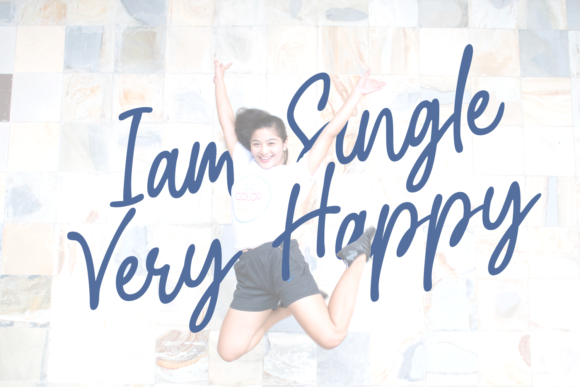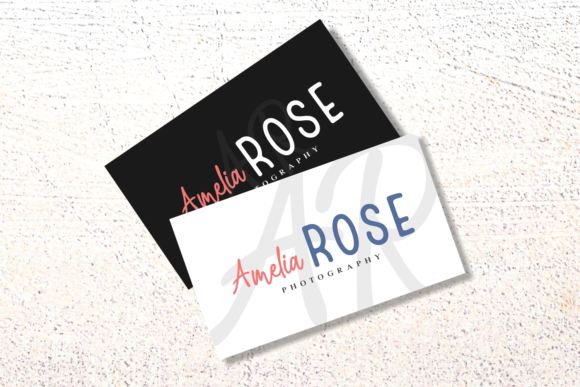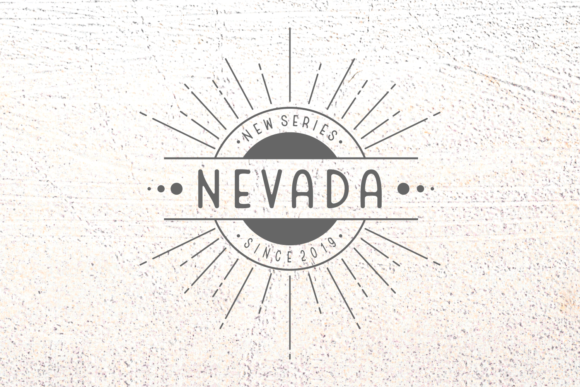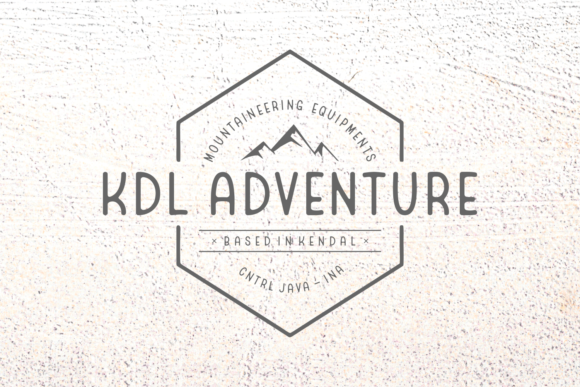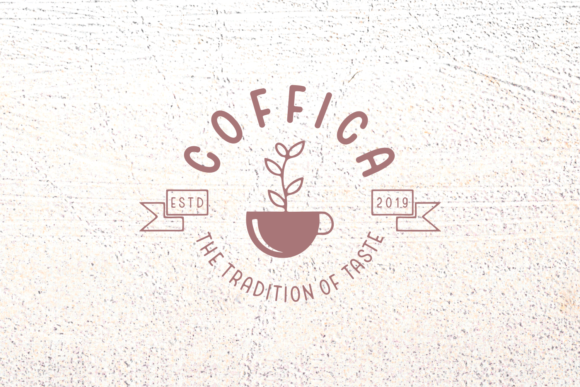
Find Your Freedom in Typography
Imagine you’re standing at the edge of a serene forest, surrounded by towering trees and the soothing sounds of nature. The air is filled with the scent of blooming wildflowers, and the warm sun shines down on your face. It’s moments like these that spark our creativity and inspire us to push the boundaries of design.
For designers seeking to capture the essence of freedom and nature in their work, the Freedom Soulmate Duo Font is a game-changer. This unique font duo is inspired by the great outdoors and exudes an adventurous feel that’s perfect for any design project needing a touch of authenticity. With its natural charm, Freedom Soulmate Duo Font is a valuable addition to any designer’s toolkit.
Whether you’re working on a branding project or creating a visual identity for an outdoor-inspired brand, Freedom Soulmate Duo Font is sure to bring a sense of freedom and adventure to your designs.
Freedom Soulmate Duo Font Key Features
- Font Style: A unique, modern, and elegant script font, perfect for creating beautiful and eye-catching designs.
- Character Count: Includes a wide range of characters, including uppercase and lowercase letters, numbers, and punctuation marks.
- Unique Characteristics: Features a beautiful, flowing script design with subtle flair and connection between letters, making it perfect for creating romantic and elegant designs.
Designer Review: Freedom Soulmate Duo Font
Overall, I found the Freedom Soulmate Duo Font to be a decent addition to any designer’s toolkit. ✨ Its versatility and clean lines make it suitable for a variety of projects, from branding and marketing materials to digital products and print media.
Here are some of the things that I like about the font:
- ✨ It’s highly legible, making it easy to read even in smaller font sizes.
- ✨ The font’s clean lines and minimalist design give it a modern feel that’s perfect for contemporary brands.
- ✨ It’s highly versatile and can be used in a range of contexts, from formal to informal.
However, there are some limitations to the font that I think are worth noting:
- ⚠️ It may not be the best choice for projects that require a lot of emphasis or dramatic flair, as it’s a relatively straightforward and simple font.
- ⚠️ The font may not be as effective in very small sizes or when used for extensive blocks of text, as it can start to look a bit bland.
Overall, I think the Freedom Soulmate Duo Font is a solid choice for designers looking for a clean and modern font that’s easy to read and versatile. While it may not be the most exciting or dramatic font, it gets the job done and is a great addition to any designer’s toolkit.
For optimal results, use the Freedom Soulmate Duo Font in conjunction with a clean and minimalistic design aesthetic.
1. Branding and logos.
2. Advertising and marketing materials.
3. Digital signage and displays.
4. Editorial and publishing content.